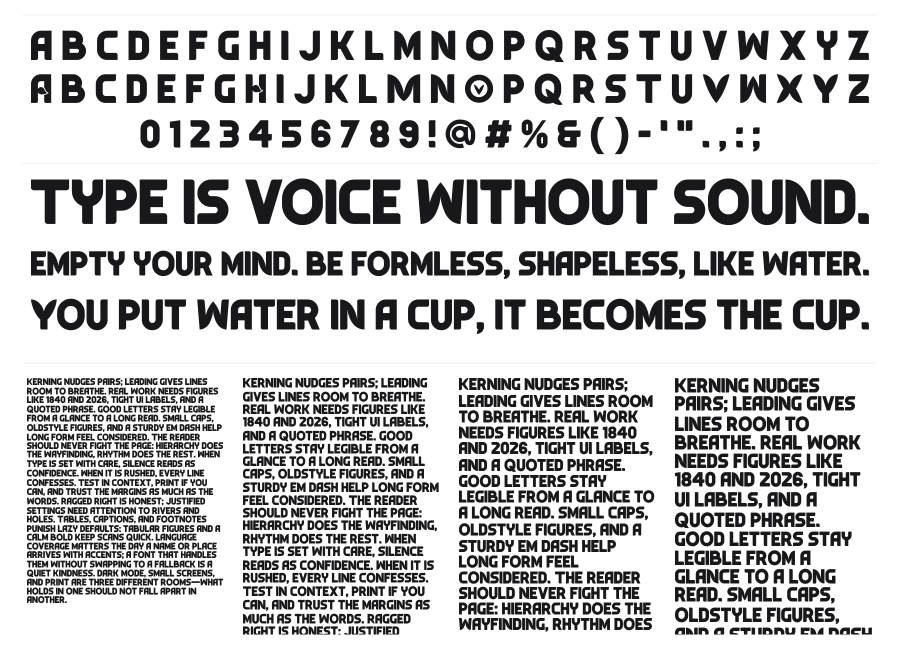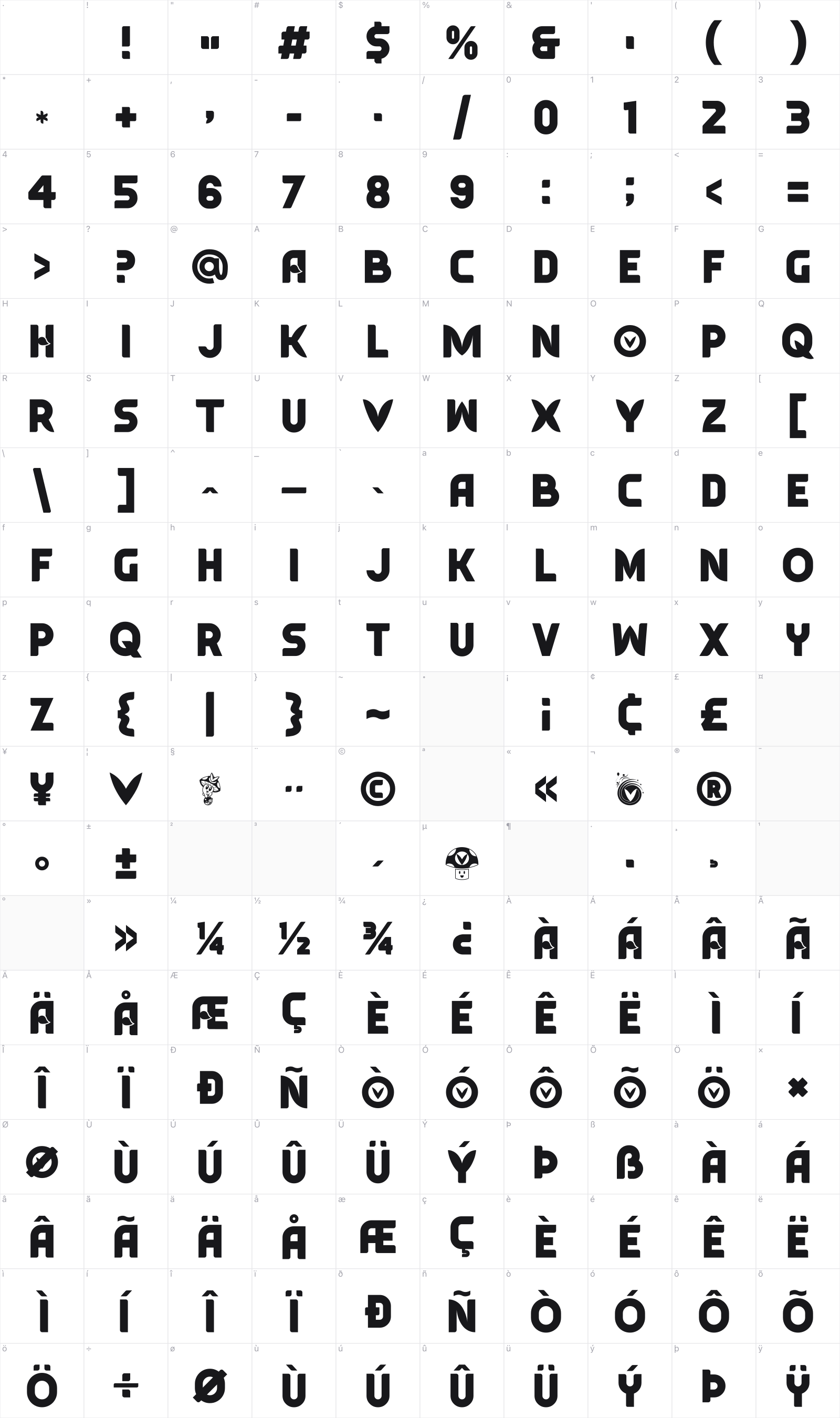
Typesauce
Typesauce is a heavy condensed sans built from the logo identity of Vinesauce, a popular Twitch streaming group. The thick, compact characters carry a retro-gaming confidence with angular notched cuts inside otherwise blocky stems. It brings the energy of arcade signage and 1970s sports lettering into an internet-native context.